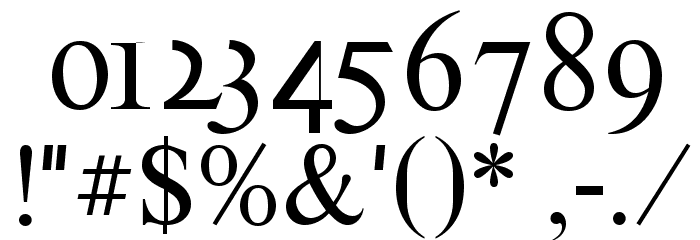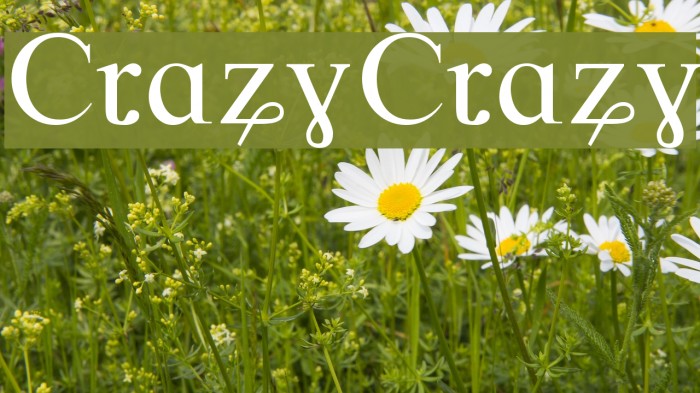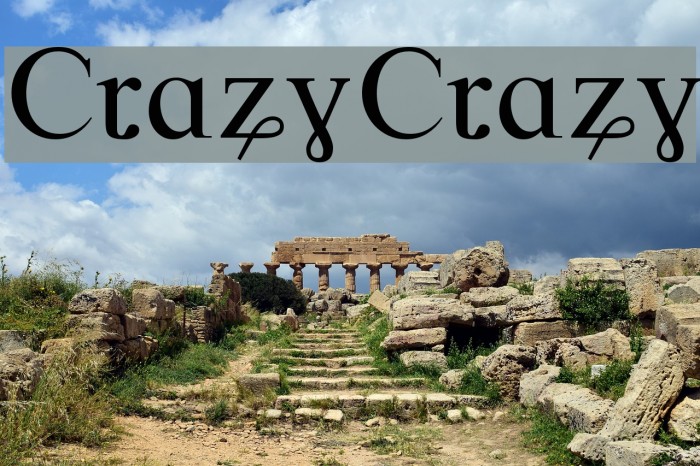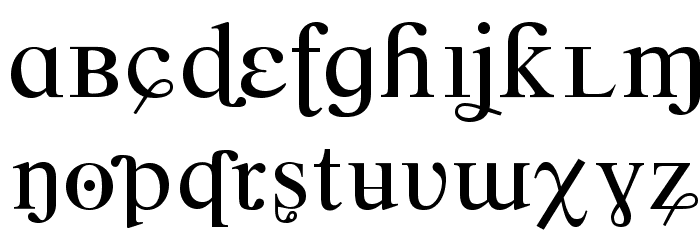
CrazyCrazy
This font features a unique blend of classic and modern elements, characterized by its elegant serifs and distinctively curved strokes. The uppercase letters exhibit a strong presence with their bold and slightly condensed form, while the lowercase letters introduce a playful yet sophisticated flair with their varied stroke endings and subtle flourishes. The numerals maintain a consistent style, complementing the alphabet with their balanced proportions. Special characters are thoughtfully designed, ensuring versatility across different applications. The overall aesthetic is both refined and expressive, making it suitable for a range of creative projects.
An elegant serif font with a blend of classic and modern elements, featuring unique curves and flourishes.
- Proposed Projects: Ideal for branding, editorial design, invitations, and luxury product packaging.
- Category: Serif
- Width: Condensed
- Overall Style: Classic